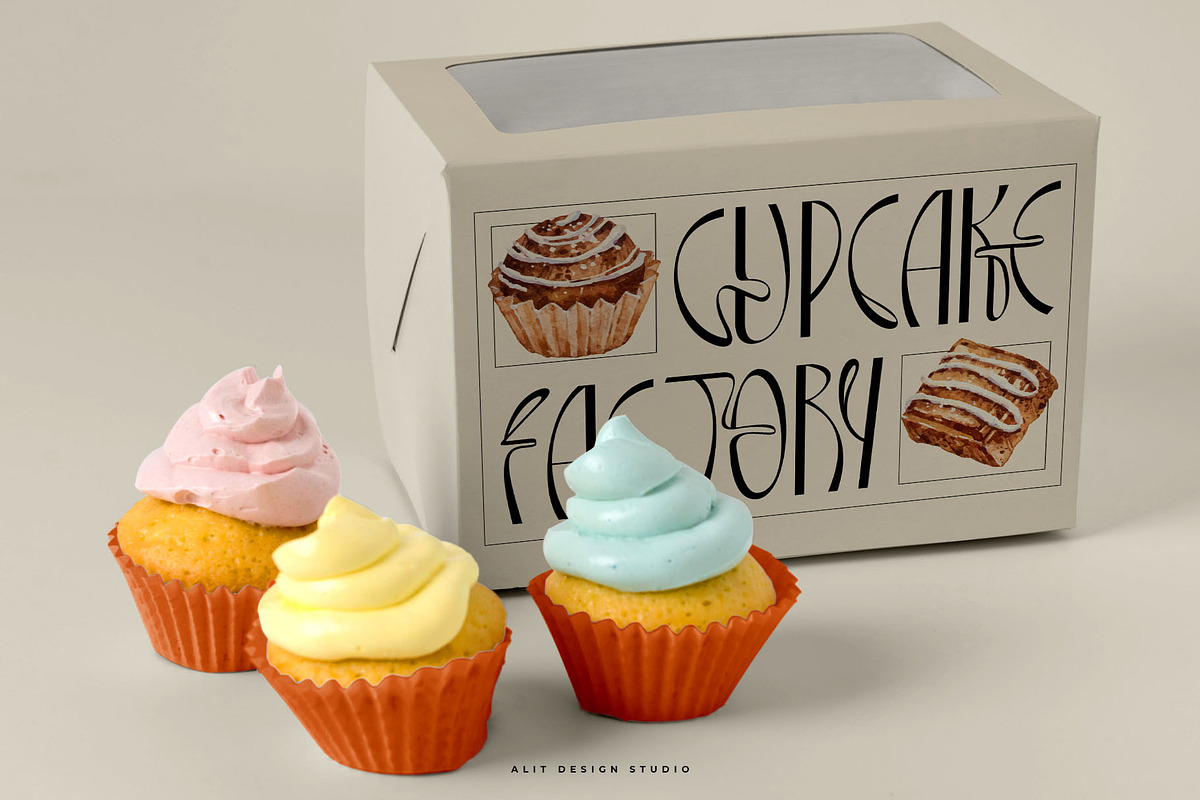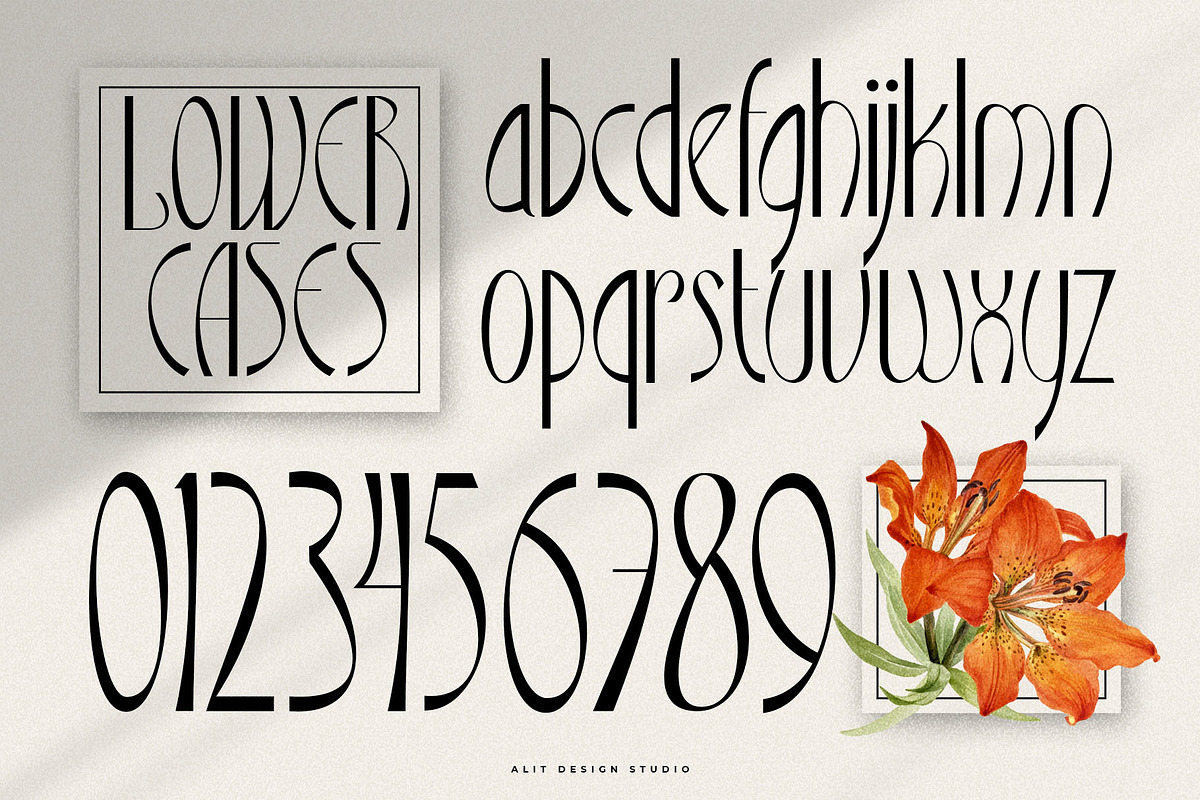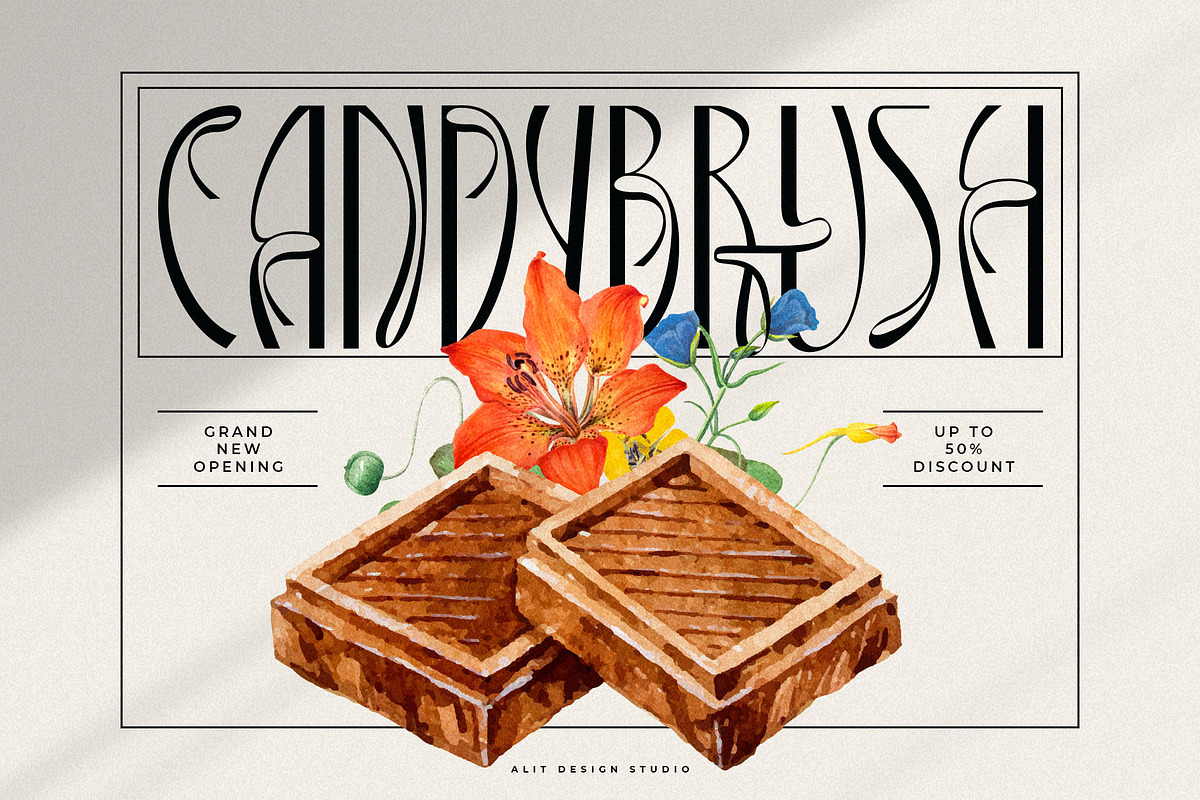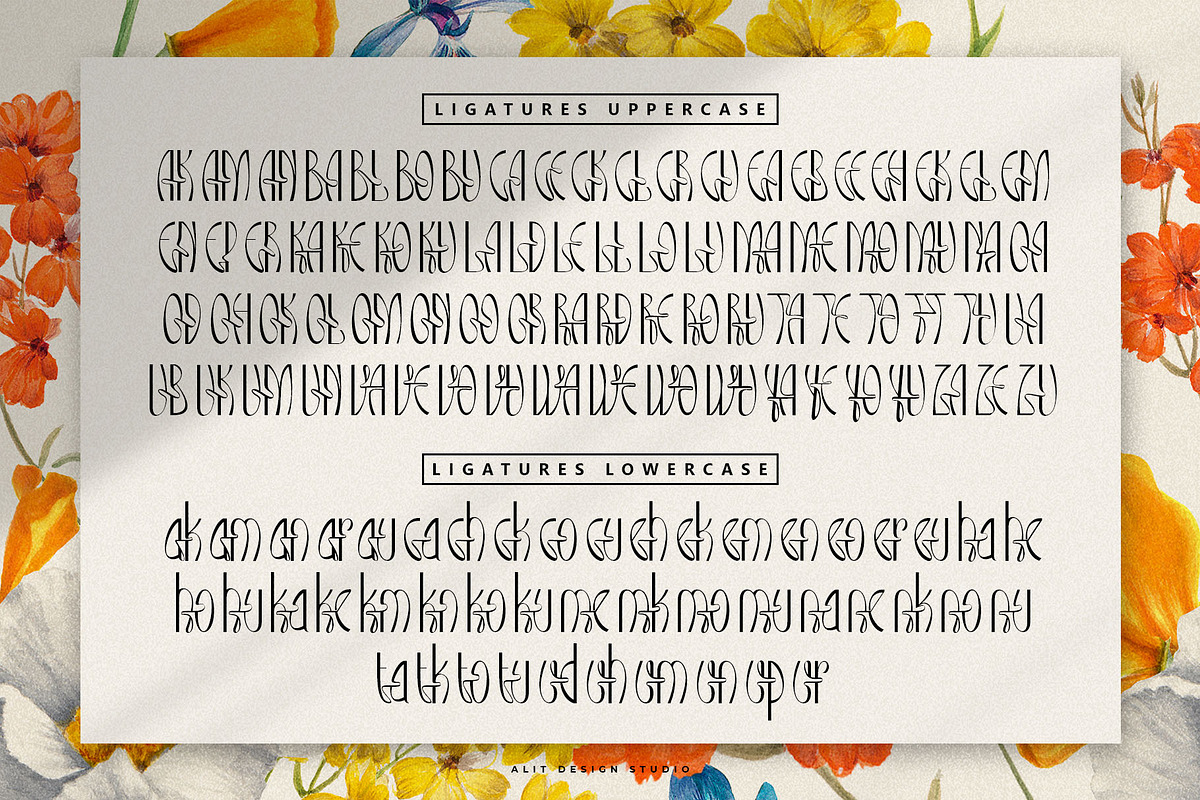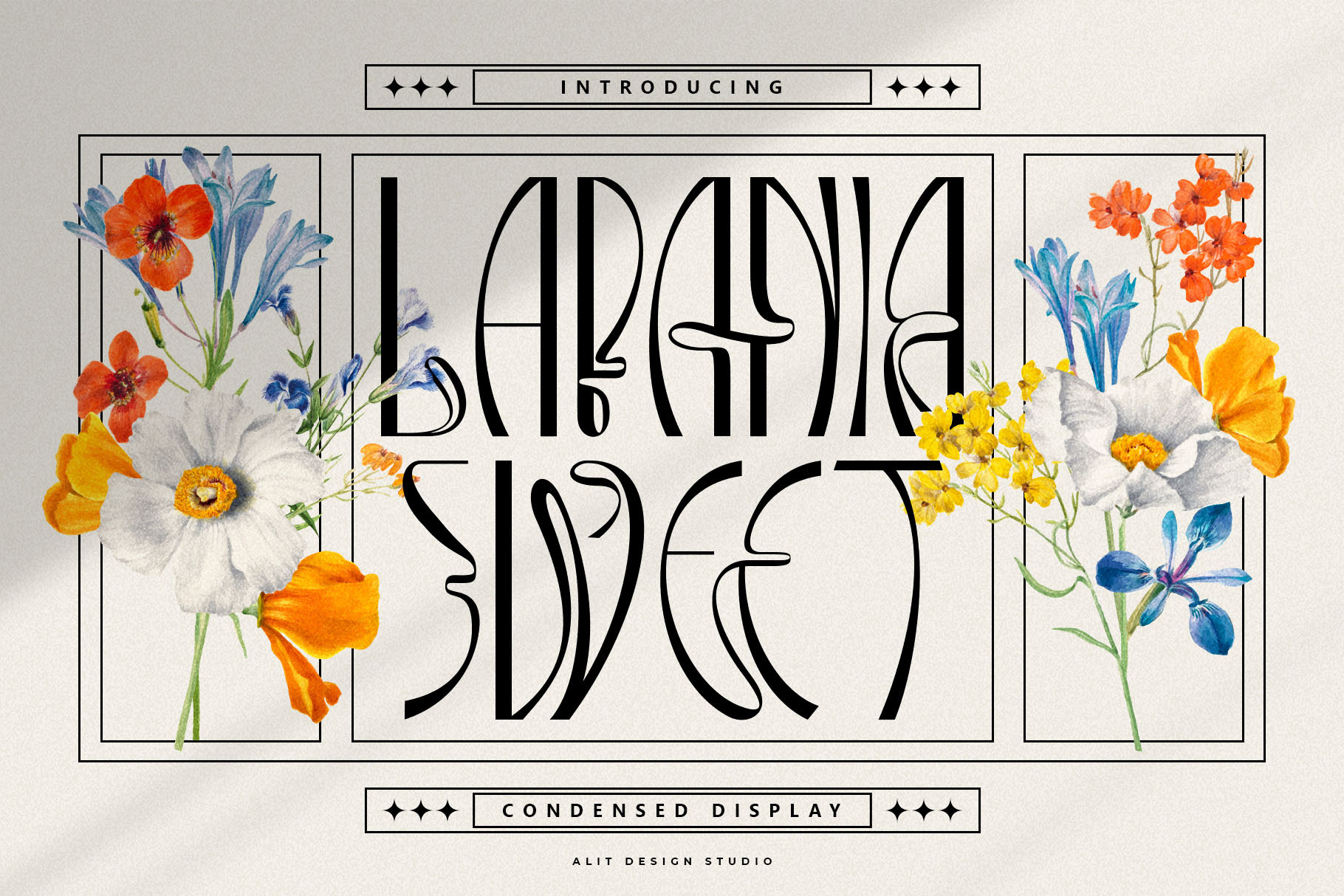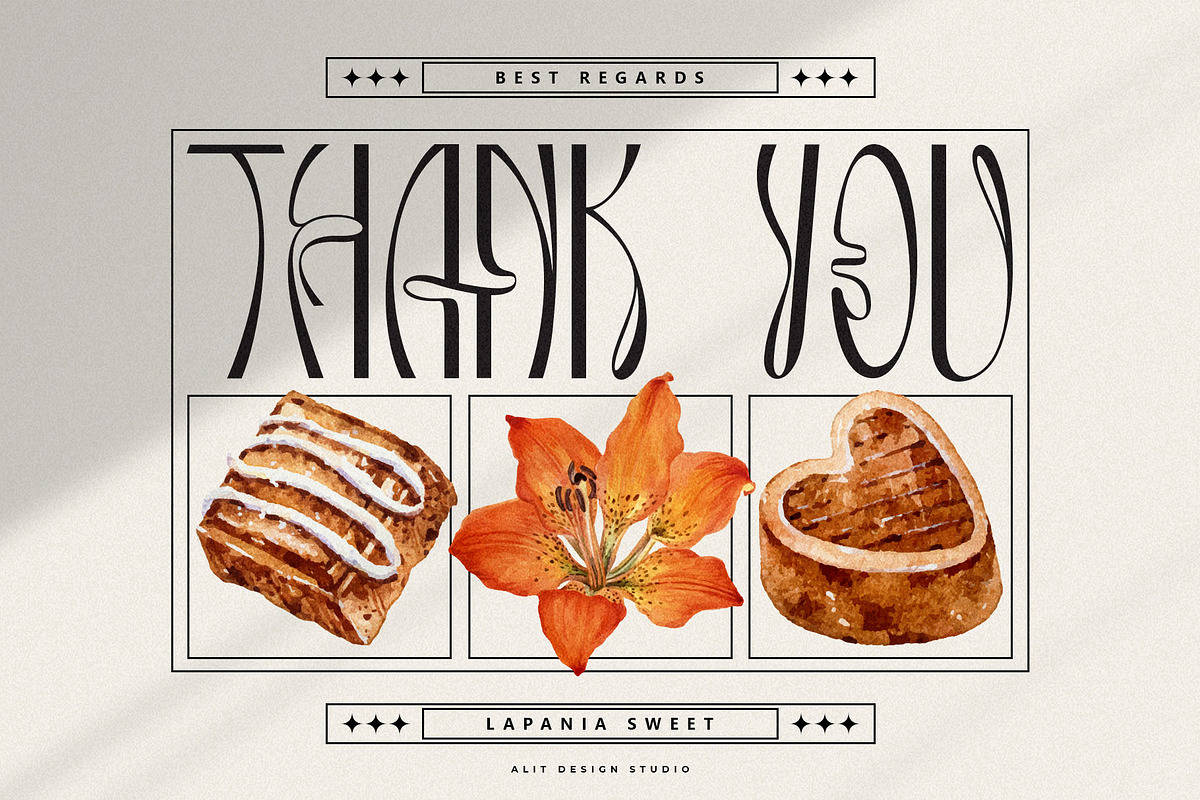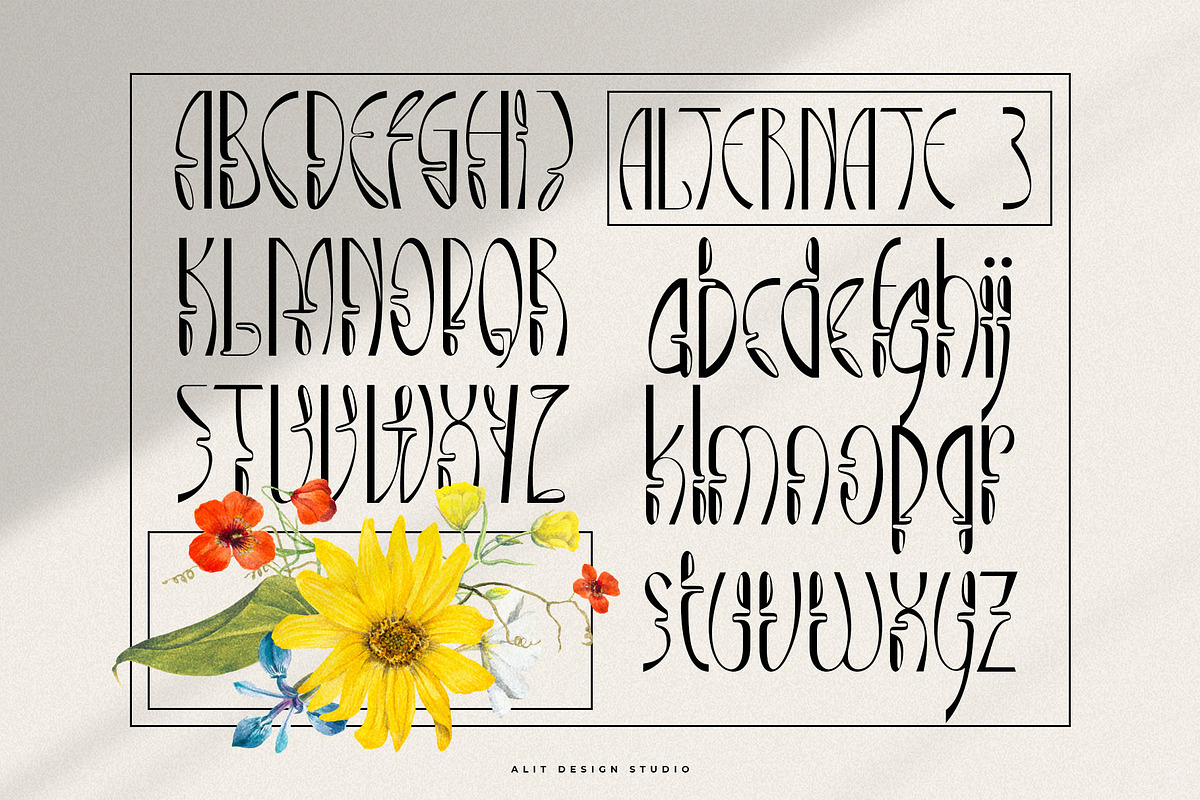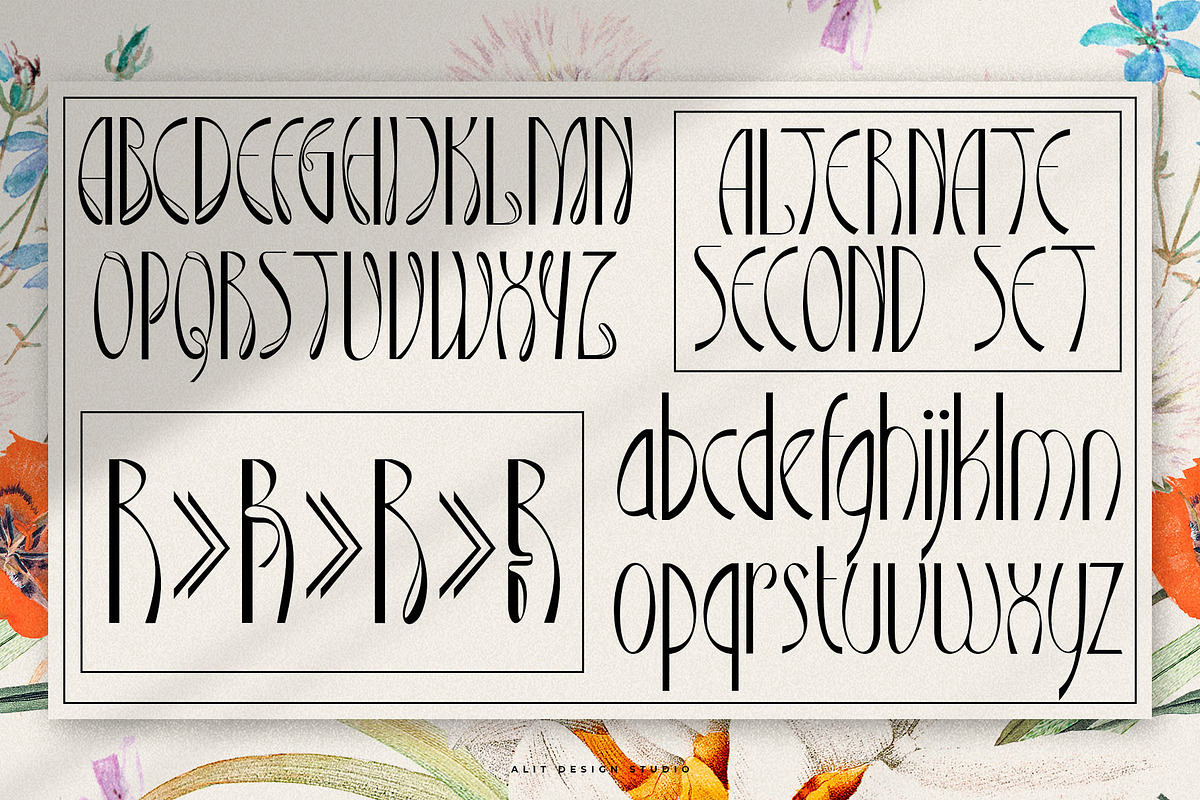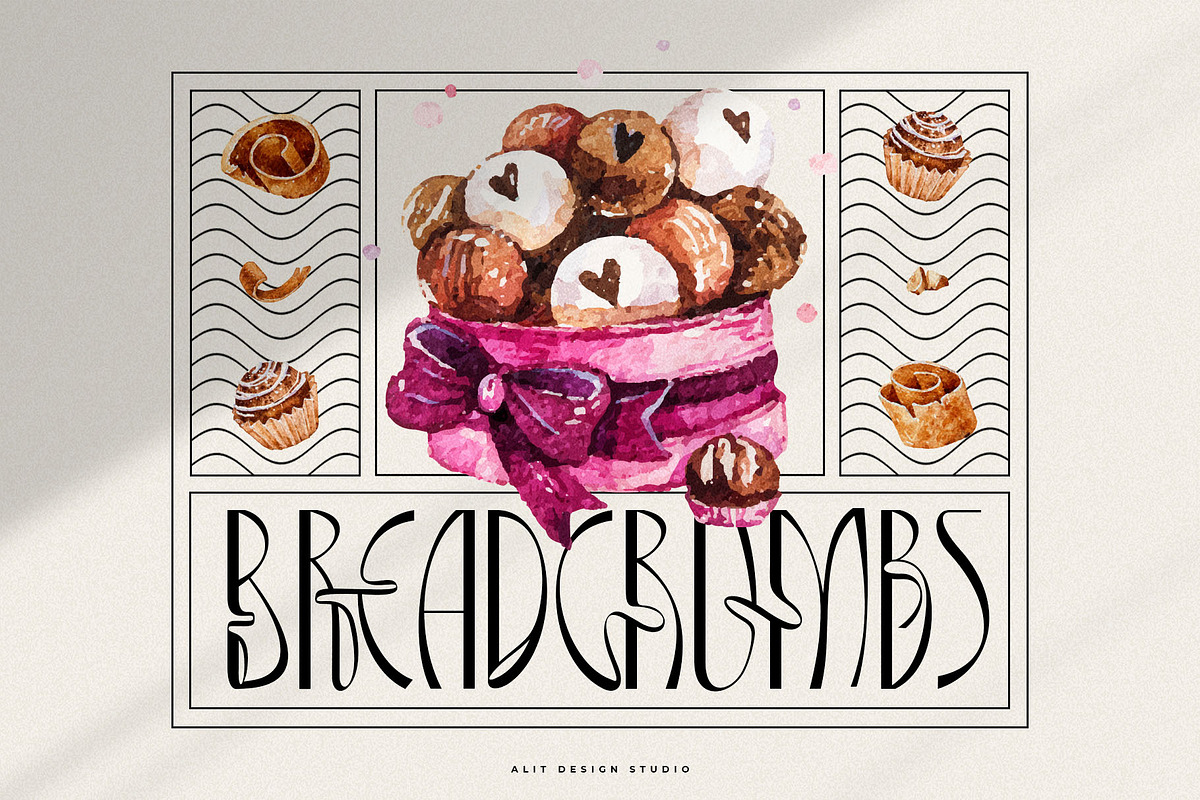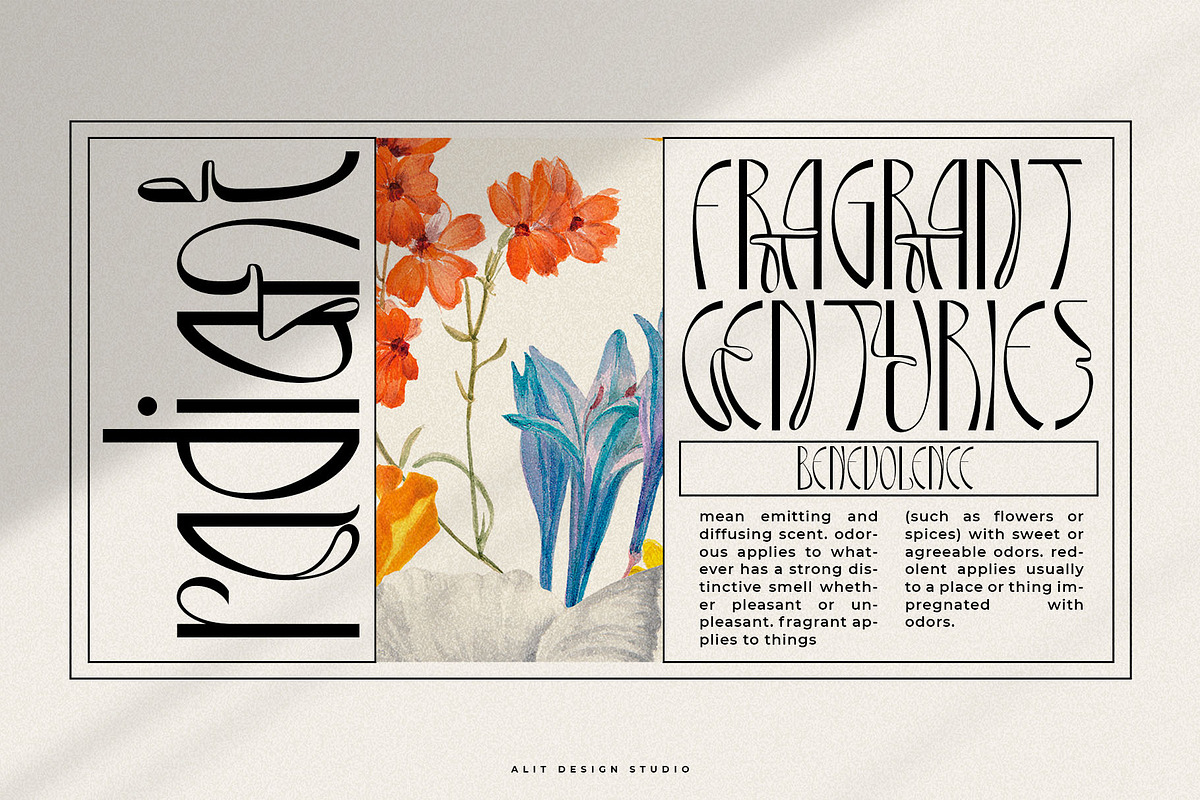
Lapania Sweet Typeface
Dynamic Elegance in Every Curve
Introducing Lapania Sweet Typeface – a fresh, modern sans serif font that embodies the spirit of bohemian chic. Crafted with meticulous attention to detail, Lapania Sweet infuses your designs with a dynamic and graceful charm.
- Modern Sans Serif: Clean and contemporary lines make it perfect for a wide range of design projects, from branding to digital media.
- Alternative Curves: Each character boasts unique, ribbon-like curves that add a touch of sophistication and playfulness.
- Bohemian Flair: Inspired by the free-spirited boho aesthetic, Lapania Sweet exudes a relaxed yet refined vibe.
- Versatile: Ideal for logos, headings, invitations, and more, this typeface adapts effortlessly to various styles and moods.
- Elegant & Dynamic: The fluidity of the curves creates movement within the text, making your designs stand out with elegance and dynamism.
Design Details:
Lapania Sweet Typeface balances form and function beautifully. Its sans serif base ensures readability and modern appeal, while the alternative curves introduce an element of surprise and creativity. This typeface is perfect for designers seeking to inject a fresh, bohemian feel into their work without sacrificing professionalism.
- Branding & Logos
- Editorial & Print Design
- Social Media Graphics
- Wedding Invitations
- Website Headers
Embrace the elegance and versatility of Lapania Sweet Typeface, and let your designs dance with the rhythm of modern, bohemian beauty. Add this dynamic, ribbon-inspired font to your toolkit today and transform your creative projects with a touch of sweetness.